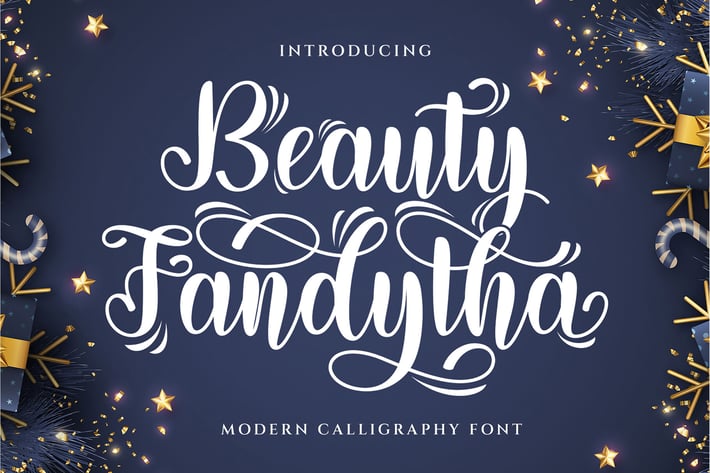
Beauty Fandhita - Script Font
Beauty Fandhita is a soft, handwritten script font that brings a graceful touch to every design. Not only is it stylish, but it’s also easy to use, making it perfect for a wide range of creative projects. You can apply this font to wedding invitations, logos, product packaging, and beauty brands. Thanks to its flowing strokes and gentle curves, it creates an elegant and modern appearance.
In addition, Beauty Fandhita offers a natural writing style that helps your designs feel personal and professional at the same time. Each letter connects smoothly, giving your text a polished yet warm look. Moreover, it remains highly readable, whether used in large titles or small body text.
Unlike many script fonts, Beauty Fandhita combines beauty with flexibility. Therefore, it works well in various industries, from fashion to weddings to beauty products. No matter what you’re designing, this font adds a feminine, elegant finish.
Why choose Beauty Fandhita Script Font?
- Elegant handwritten style that’s easy to read
- Perfect for weddings, invitations, and branding
- Smooth flow creates a natural handwritten feel
- Supports letters, numbers, and basic punctuation
- Includes stylish swashes and creative alternates
- Ideal for logos, product labels, and social media
Furthermore, its gentle strokes blend well with other fonts, though it also shines on its own. Since its style is both modern and timeless, you can rely on it for future projects as well.